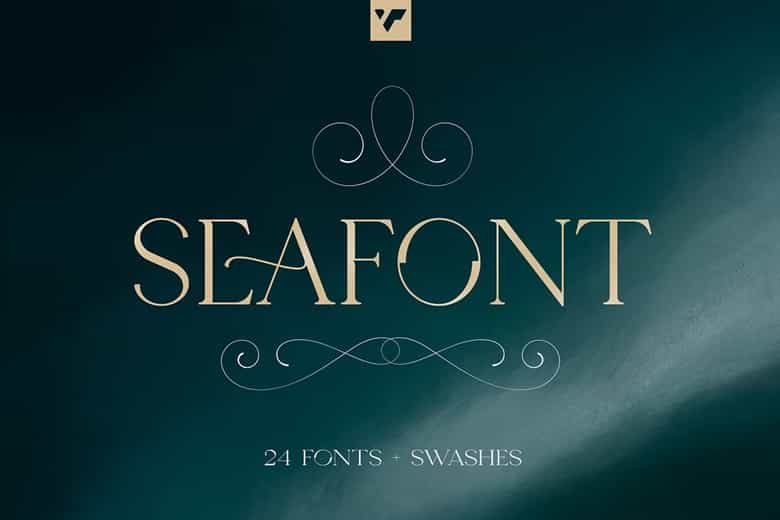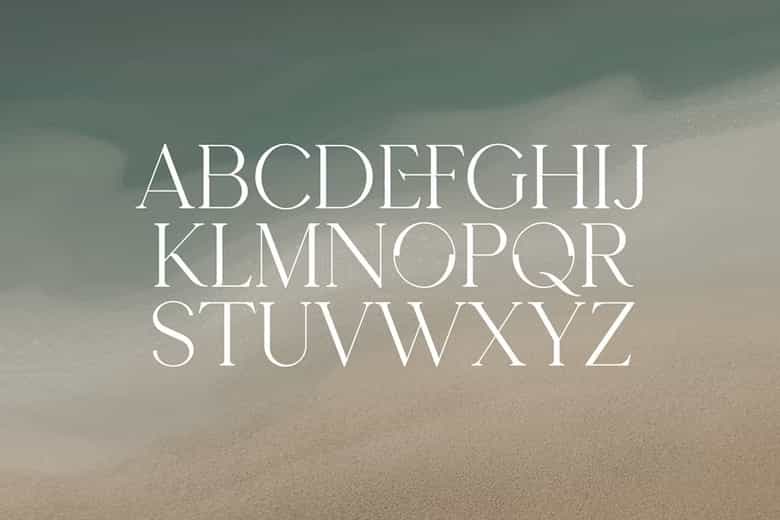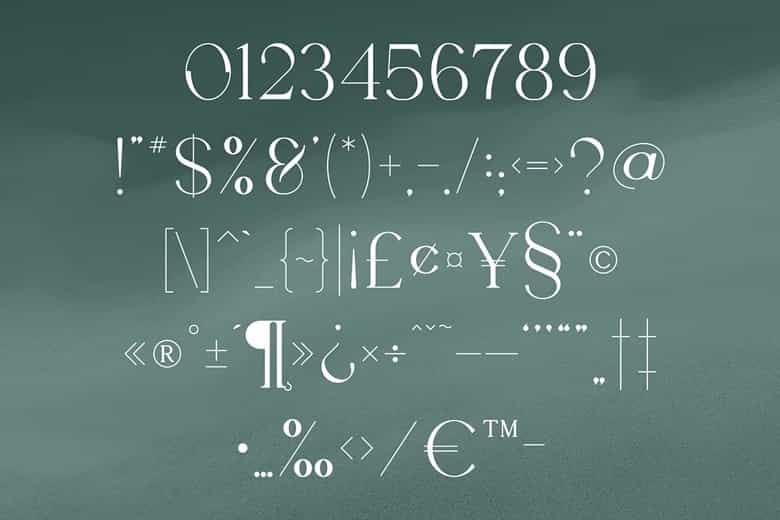
Seafont is elegant serif font that gives it a magnitude of class and style as is it stylishly versatile. Whether you make your choice between the 24 font styles or you play it adventurously and select from 26 swashes, multi-language support plus ligature glyphs – each design is unique!